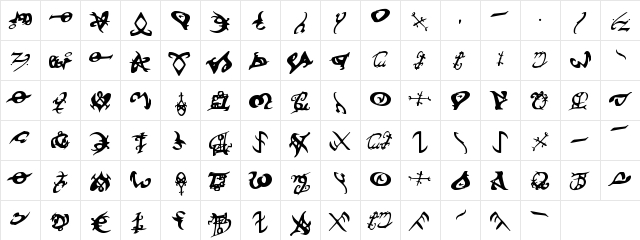
Devil's Tongue Regular
Design Context for Devil's Tongue Typeface
Devil's Tongue is a composed and adaptable typeface that performs quietly and consistently across a wide range of design contexts.